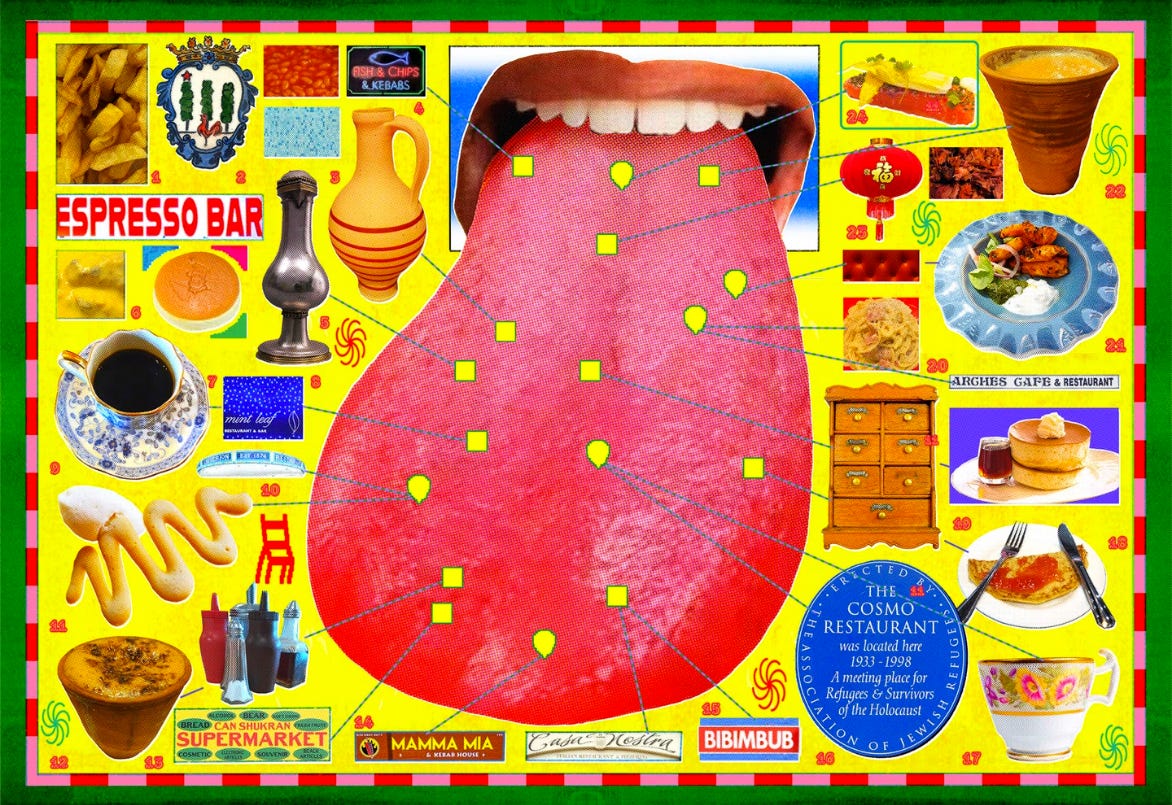
Do you taste with your eyes?
Sarah Hyndman
“Can you taste design?”
This is the question It's Nice That’s Olivia Hingley asked me recently when she interviewed me for an article.
“Eating is a multi-sensory experience, and the design surrounding food – from restaurant interiors to menu typefaces…”
“Since 2013, the designer, researcher and author of Why Fonts Matter Sarah Hyndman has been con…